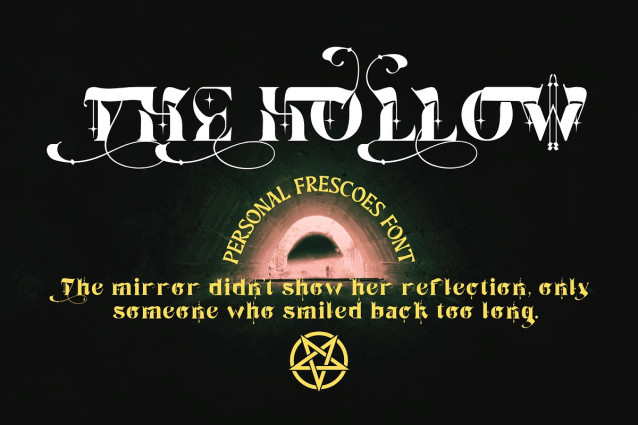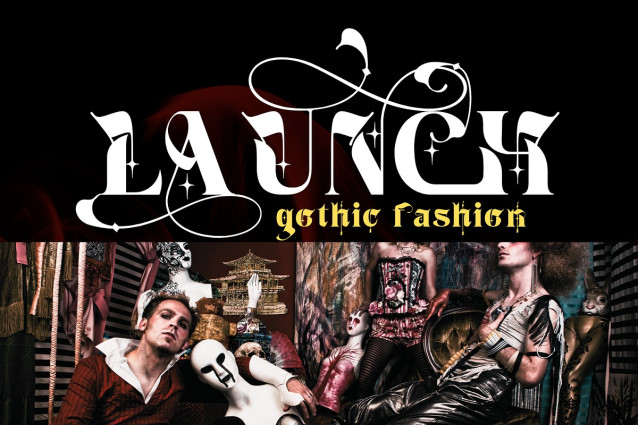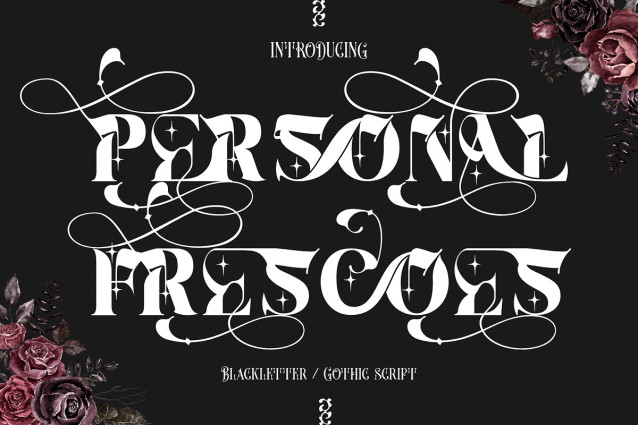
Personal Frescoes Font
Personal Frescoes Font – A Luxurious Baroque Blackletter Font, a decorative blackletter display font infused with baroque opulence and modern gothic energy. Each letter is boldly structured with sharp blackletter forms, while elegant flourishes, swashes, and sparkling star-like details add a touch of drama and refinement. This font exudes power and artistry, making it perfect for luxury branding, gothic-inspired posters, music covers, tattoo designs, editorial layouts, and any project that demands a sense of grandeur and mystique.
Font Features:
Uppercase & Lowercase Letters
100+ Unique Ligatures & Alternates
Accented Characters for Multilingual Support
Ornamental swashes & decorative flourishes
About 100 ligatures combined with Stylistic Alternates Font:
AC AD AL AN AR AS AT AU AV BE CA CE CH CO CT DE DI EA EC ED EE EL EM EN EP ER ES ET FE FO FR GE HA HE HI HO IE IC IL IN IO IR IS IT JU KE LA LE LI LL LO LY MA ME MI NC ND NE NG NO NT NS OC OF OM ON OO OP OR OT OU OW PA PR RA RD RE RI RO RS RT SE SH SI SO SS ST TA TE TH TI TO TR TT UM UN UR VE WI WO